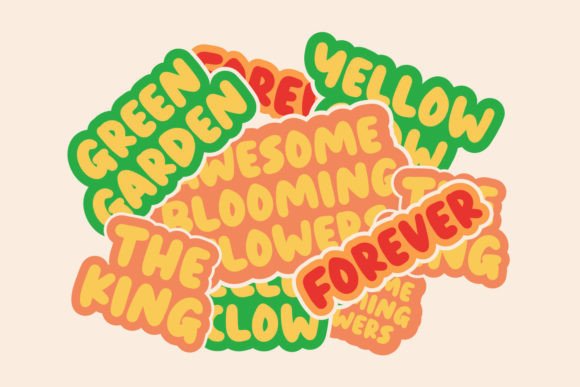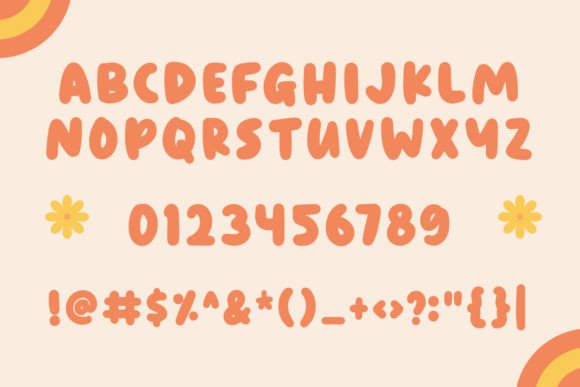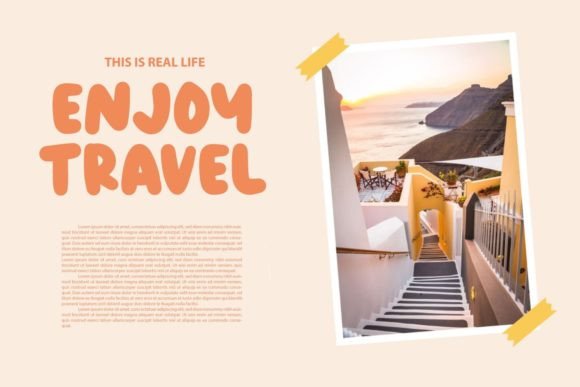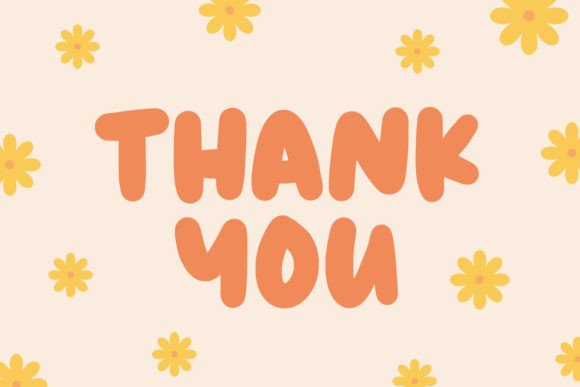
Bunga Indah Font: Elevate Your Designs with a Cool and Casual Handwritten Style
Are you tired of using the same old fonts in your designs? Do you want to add a touch of personality and whimsy to your creations? Look no further than Bunga Indah, a cool and casual handwritten font that’s sure to become a staple in your font library. In this article, we’ll explore the features and benefits of Bunga Indah, and show you how it can elevate your designs to the next level.
What is Bunga Indah?
Bunga Indah is a beautifully crafted handwritten font that’s perfect for designers and crafters looking for a unique and versatile typeface. With its casual and laid-back vibe, this font is ideal for a wide range of projects, from branding and packaging to social media graphics and digital art.
One of the standout features of Bunga Indah is its incredible legibility. Even at smaller sizes, this font remains clear and easy to read, making it perfect for use in body text or captions. And with its distinctive handwritten style, Bunga Indah adds a touch of warmth and personality to any design.
Why You’ll Love Bunga Indah
So why should you choose Bunga Indah for your next design project? Here are just a few reasons why this font is an incredible asset to your font library:
- Unique and eye-catching: Bunga Indah’s handwritten style sets it apart from more traditional fonts, adding a touch of personality and whimsy to your designs.
- Versatile: Whether you’re working on a branding project, social media graphics, or digital art, Bunga Indah is the perfect choice.
- Easy to read: Despite its casual style, Bunga Indah remains clear and legible even at smaller sizes.
- High-quality: Bunga Indah is a professionally crafted font that’s designed to deliver exceptional results.
How to Use Bunga Indah in Your Designs
So how can you start using Bunga Indah in your designs? Here are a few ideas to get you started:
- Branding and packaging: Use Bunga Indah to create eye-catching logos, labels, and packaging that stands out from the crowd.
- Social media graphics: Add a touch of personality to your social media graphics with Bunga Indah, perfect for creating engaging posts and stories.
- Digital art: Bunga Indah is the perfect choice for digital artists looking to add a touch of whimsy to their work.
- Handmade crafts: Use Bunga Indah to add a personal touch to your handmade crafts, such as journals, planners, and gift tags.
Tips for Getting the Most Out of Bunga Indah
To get the most out of Bunga Indah, here are a few tips to keep in mind:
- Experiment with different sizes: Bunga Indah remains clear and legible even at smaller sizes, so don’t be afraid to experiment with different font sizes.
- Pair with other fonts: Bunga Indah pairs perfectly with other fonts, so try combining it with a bold sans-serif font for added contrast.
- Use it consistently: To create a cohesive look, use Bunga Indah consistently throughout your design.